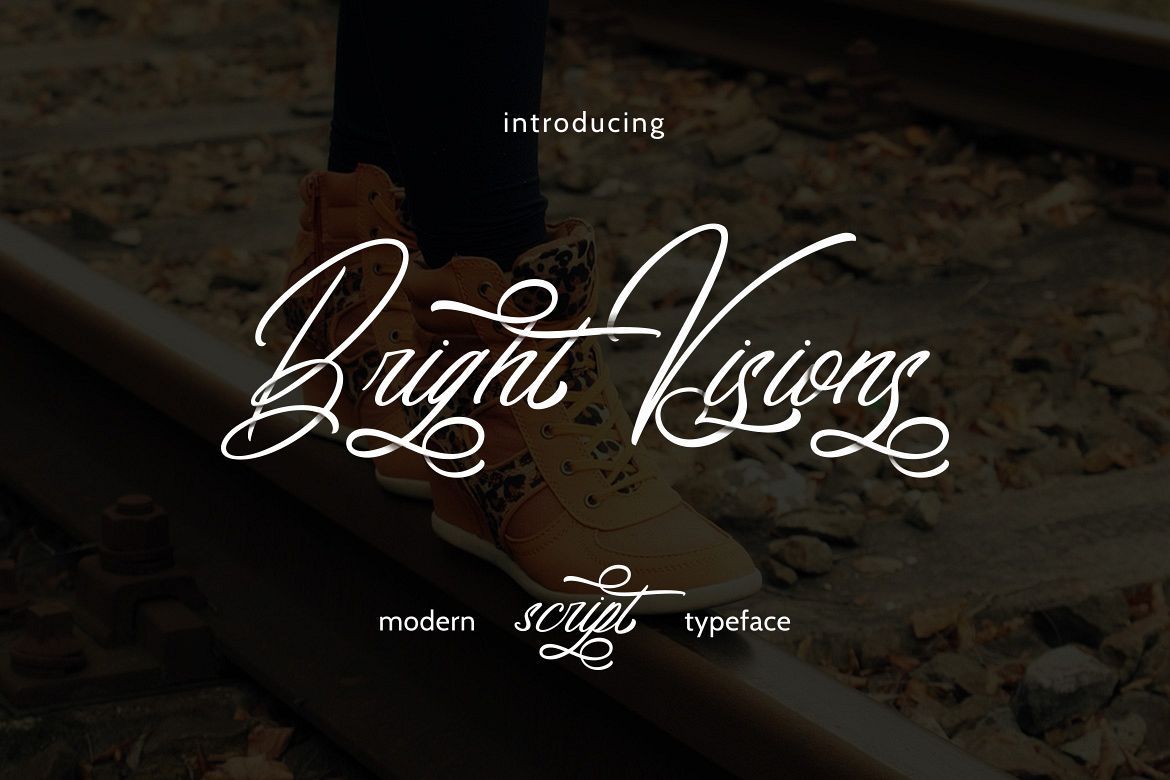
Bright Visions Typeface
Bright Visions
Hello world..!! this is Bright Visions Typeface, simple and easy to create awesome lettering, just type your words and then you will immediately see the great results.The Bright Visions Script features:
• Uppercase & lowercase
• Stylistic alternatives & swashes
• Initials & finals
• International characters (Multilingual)
• Punctuation & symbols